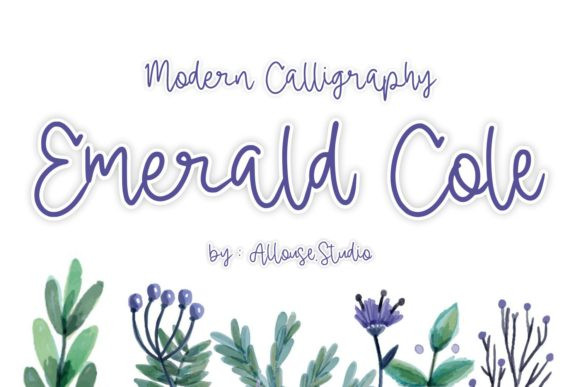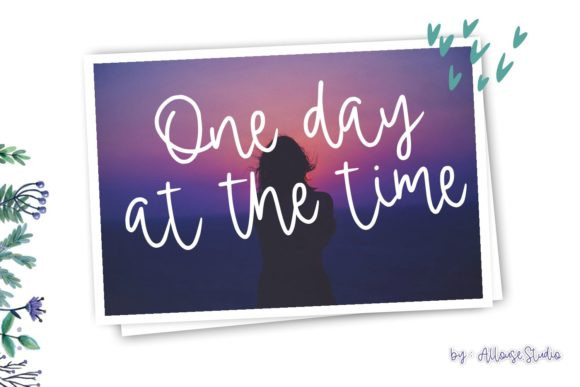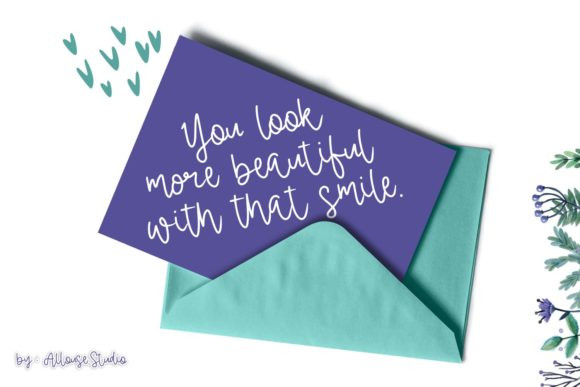
Emerald Cole Font
Emerald Cole is a sweet and delicate handwritten font. Dainty and joyful, this font will be ideal for writing wedding invitations, cards or any other design that may need a romantic, personalized touch!